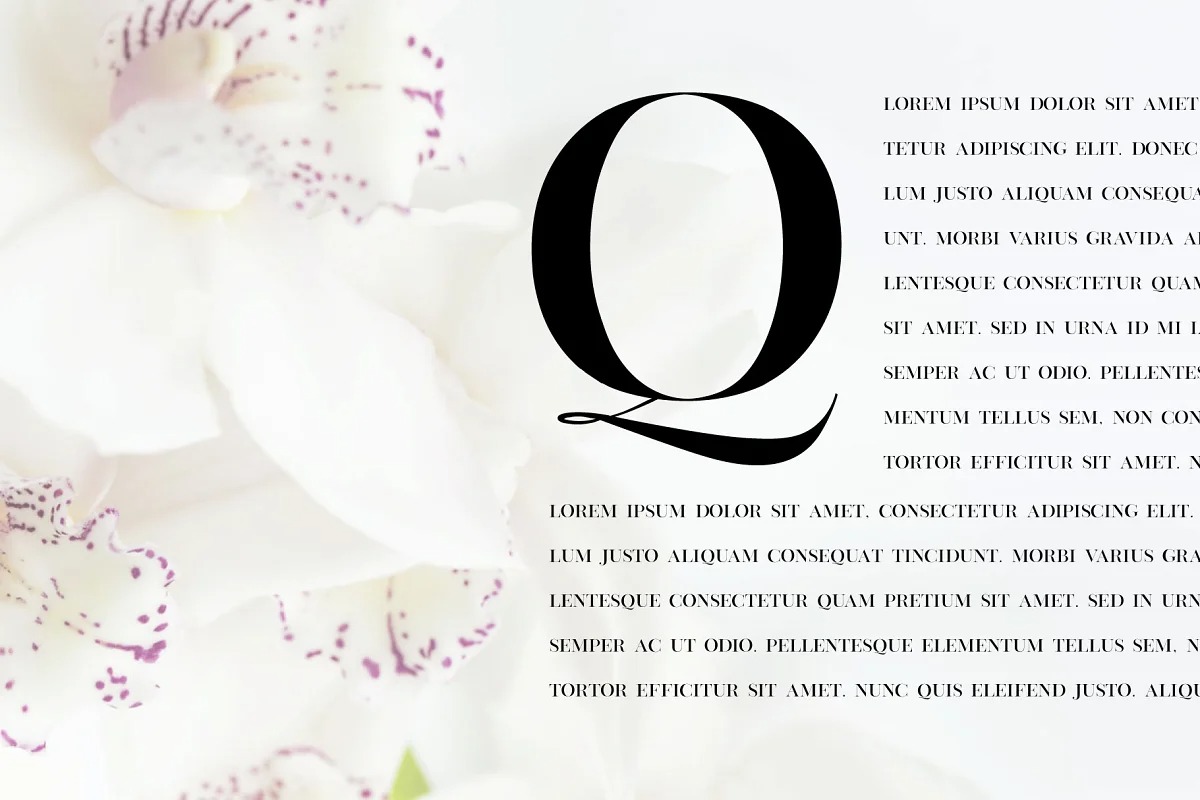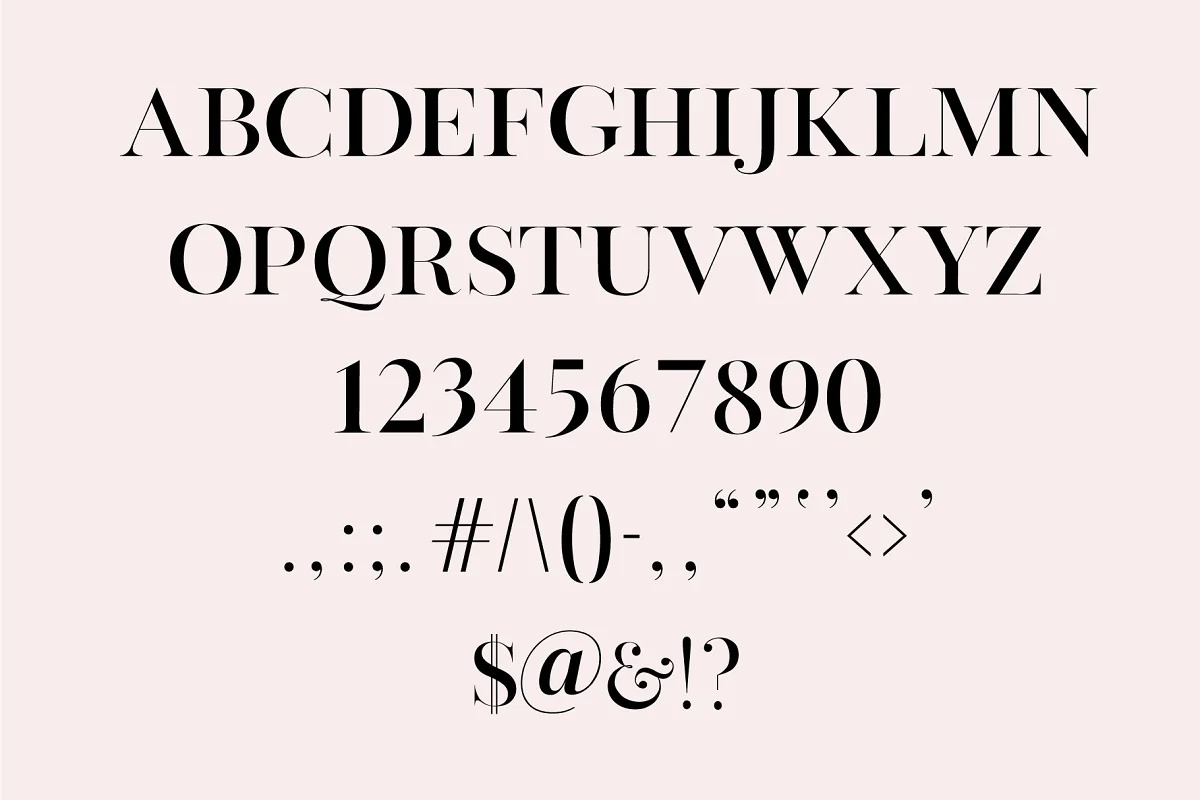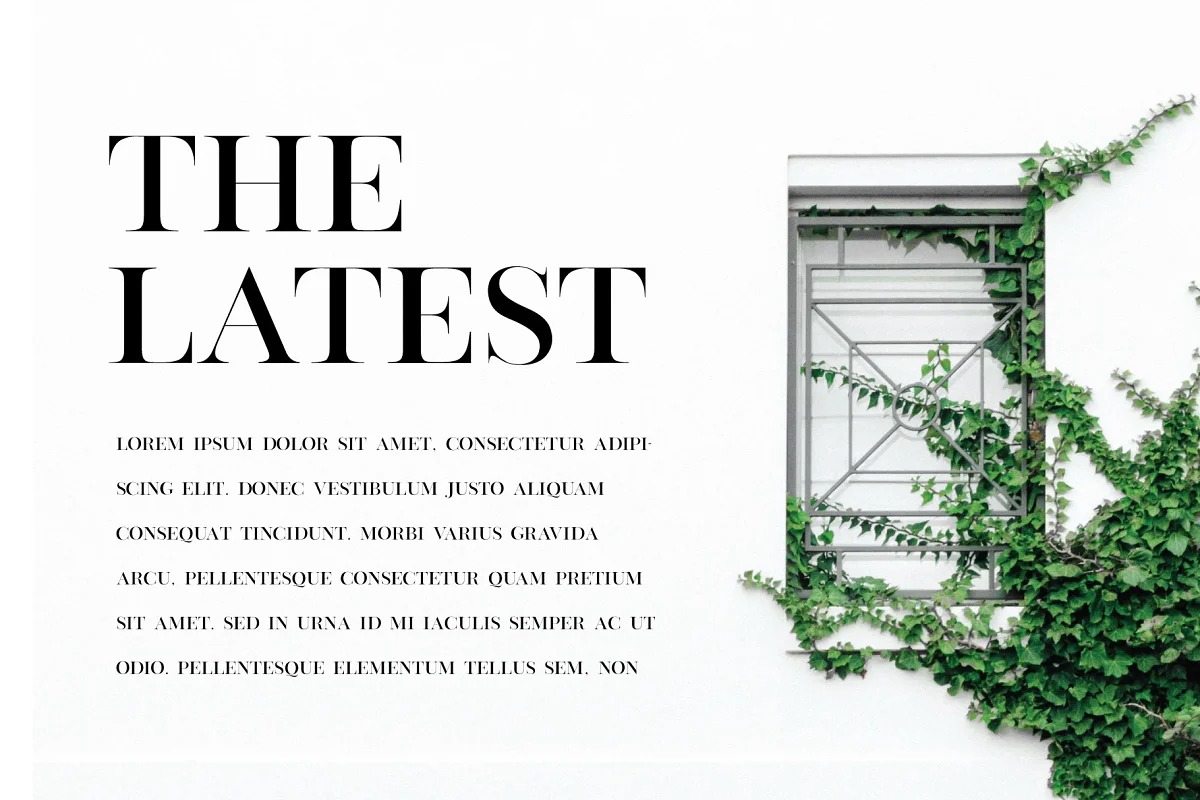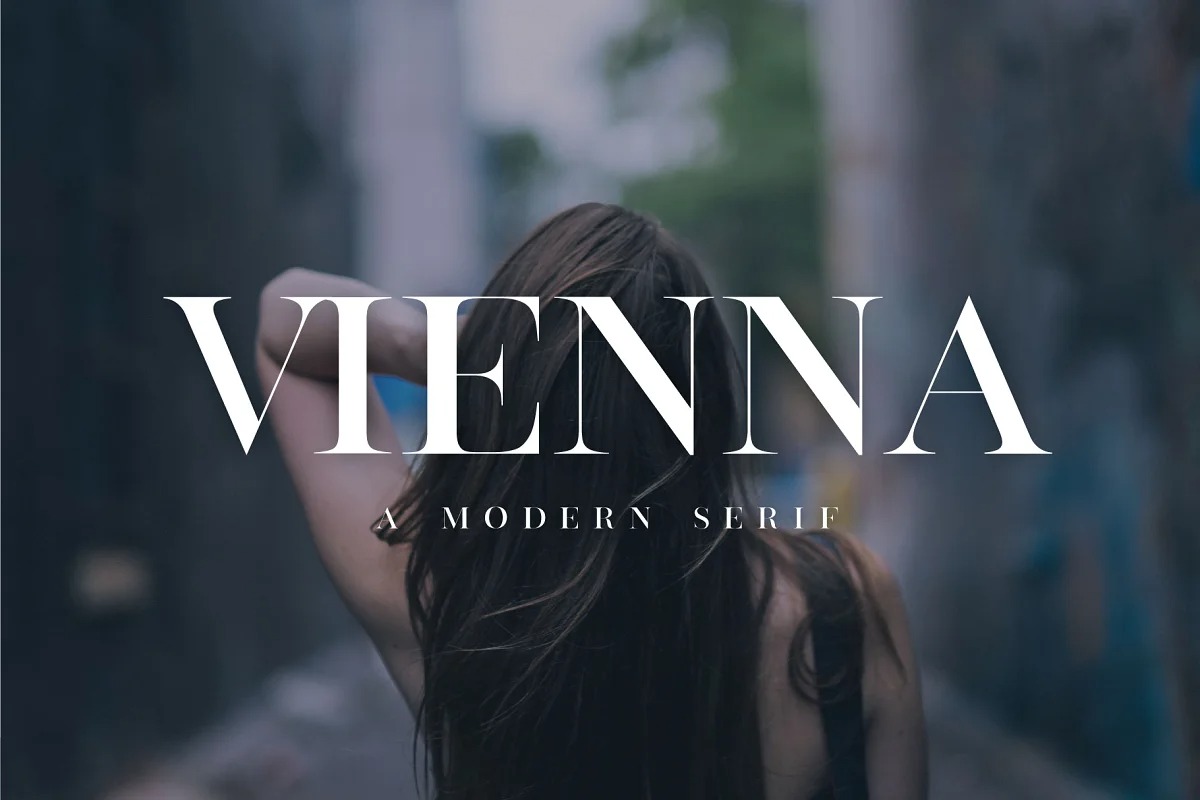
Vienna Font
Vienna Serif Font
This is a modern serif typeface manufactured by Big Cat Creative. Clean, delicate, classic. Elegant all caps font with feminine bonus logos. This font would pair perfectly with a script/signature or handwritten style text or as you can see in the images above, it looks fab by itself!
This font contains all uppercase english alphabet, numbers and basic punctuation.